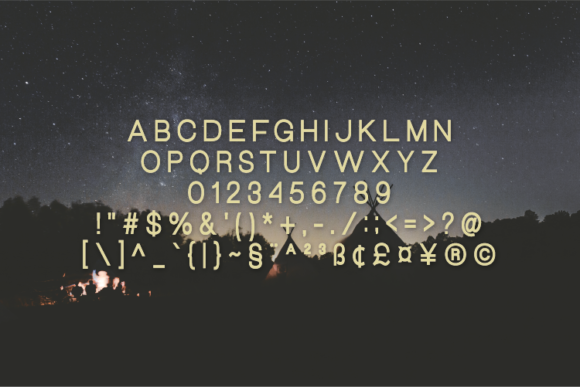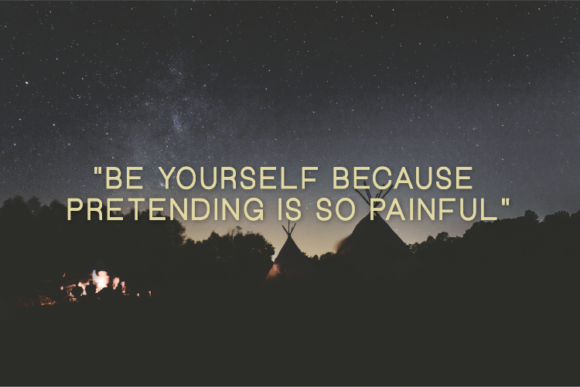
Ethern Font: The Ultimate Sans Serif for Modern Designs
In the world of typography, fonts play a crucial role in making or breaking a design. A well-chosen font can elevate your project, while a poorly selected one can detract from it. For designers and crafters looking for a clean, simple, and authentic sans serif font, Ethern Font is an excellent choice. In this article, we’ll explore the features and benefits of Ethern Font, and why it’s perfect for your next design project.
What is Ethern Font?
Ethern Font is a modern sans serif font that exudes a clean, thin, and smooth vibe. Its simplicity and authenticity make it an excellent addition to any design project. The font’s sleek lines and minimalist aesthetic ensure that it will not overpower your content, but rather complement it.
Key Features of Ethern Font
- Clean and Simple Design: Ethern Font boasts a clean and simple design that makes it perfect for a wide range of applications, from digital media to print materials.
- Thin and Smooth Lines: The font’s thin and smooth lines give it a modern and sophisticated look that’s sure to impress.
- Authentic and Versatile: Ethern Font is an authentic and versatile font that can be used in various design projects, from logos and branding to websites and social media graphics.
- Ease of Readability: The font’s clear and legible design ensures that your content is easy to read, making it perfect for body text and headings.
Benefits of Using Ethern Font
So, why should you choose Ethern Font for your next design project? Here are some benefits of using this fantastic font:
- Enhances Readability: Ethern Font’s clean design and clear lines make it easy to read, even at small font sizes.
- Versatile and Adaptable: The font’s simplicity and versatility make it suitable for a wide range of design projects and applications.
- Modern and Sophisticated Look: Ethern Font’s sleek design gives your project a modern and sophisticated look that’s sure to impress.
Who Can Benefit from Ethern Font?
Ethern Font is perfect for:
- Graphic Designers: Whether you’re working on a logo, brochure, or website, Ethern Font is an excellent choice.
- Digital Artists: If you’re creating digital art, illustrations, or graphics, Ethern Font can add a touch of modernity to your work.
- Crafters and Makers: If you’re creating handmade products, such as jewelry, crafts, or textiles, Ethern Font can be used to create labels, packaging, or branding materials.
- Web Designers and Developers: Ethern Font is perfect for web design projects, including website headers, body text, and UI elements.
In conclusion, Ethern Font is an excellent choice for designers and crafters looking for a clean, simple, and authentic sans serif font. Its versatility, readability, and modern look make it perfect for a wide range of design projects. Whether you’re working on a digital project or a print material, Ethern Font is sure to elevate your design and make it stand out.